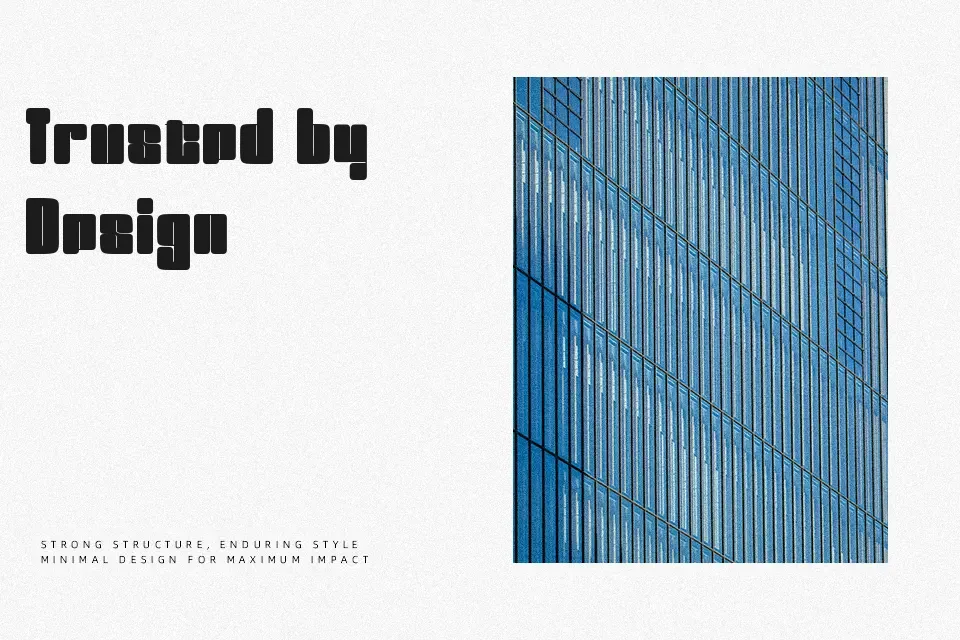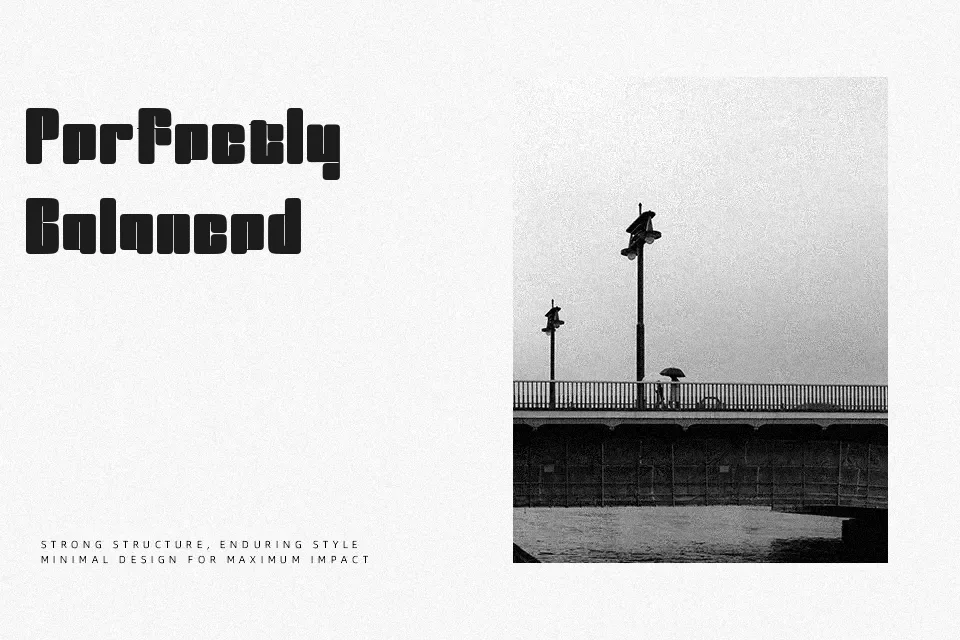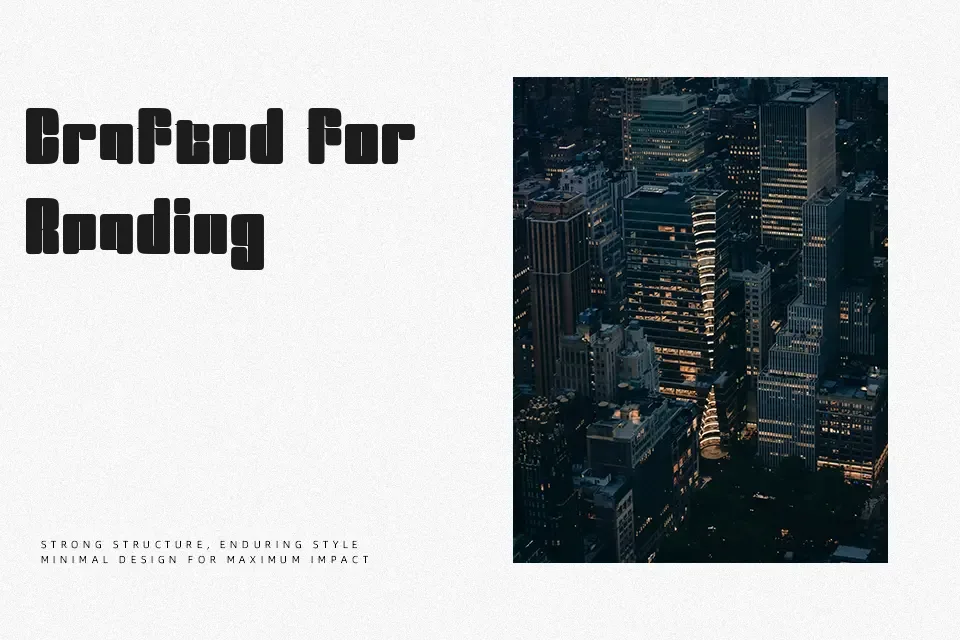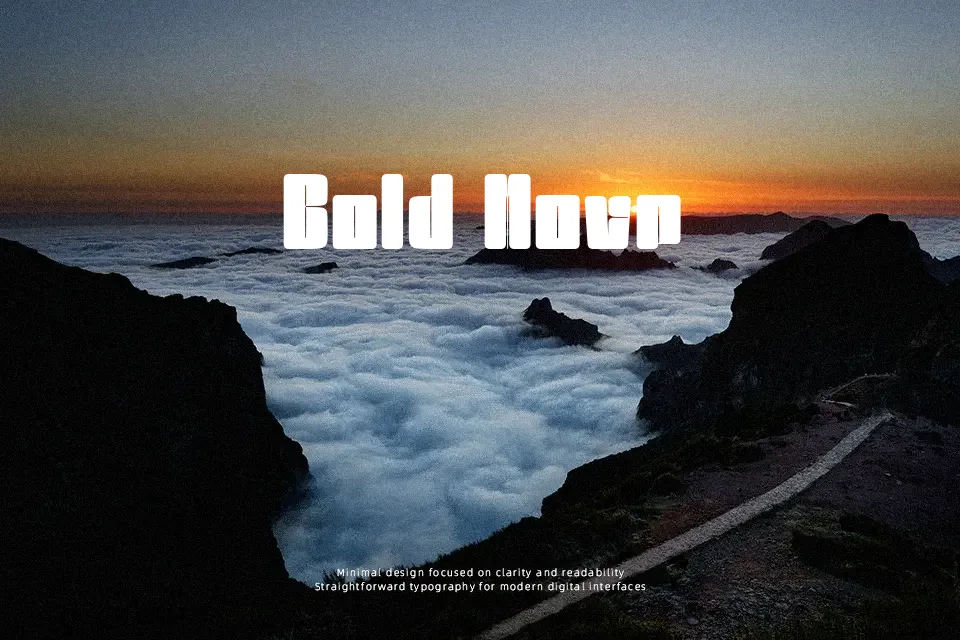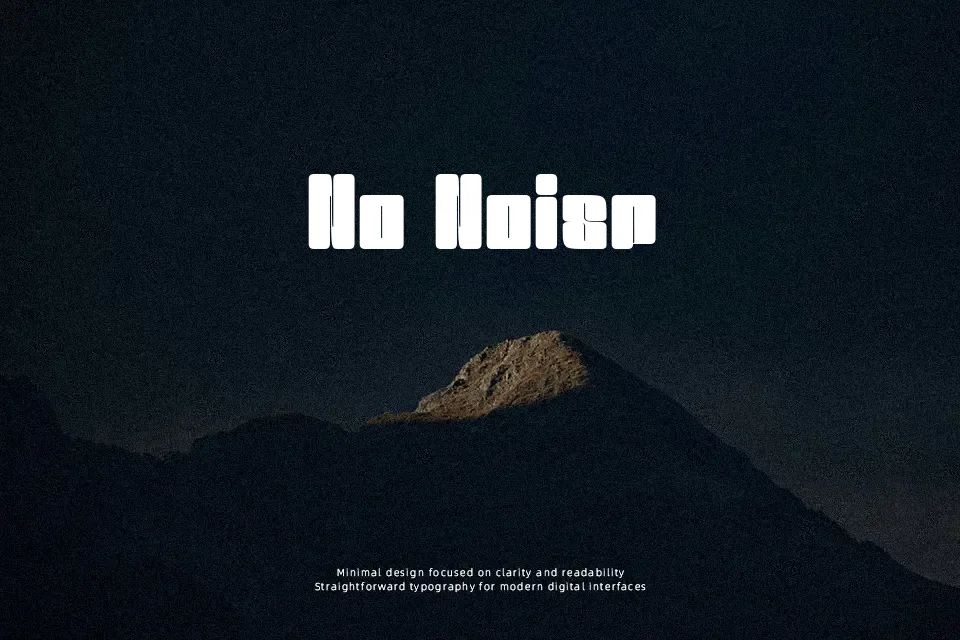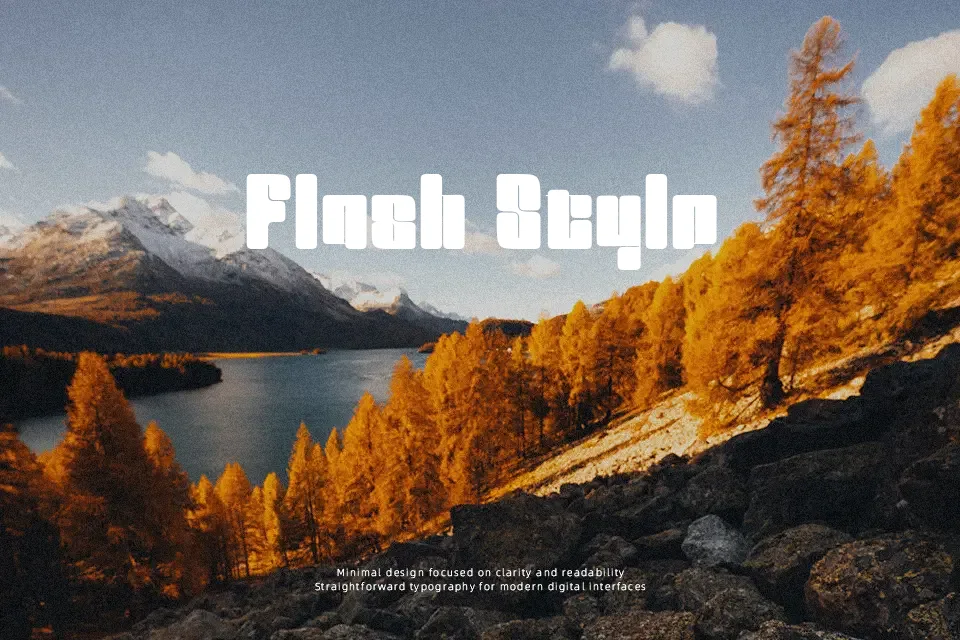
Bezamin Harison Font
Bezamin Harison leans hard into condensed geometry — tall, blocky characters packed with minimal kerning give it an imposing, tightly wound presence on the page. The strokes are consistent and assertive, and the deliberately small counters (“eyes”) inside letters add to its dense, compressed character. This makes it a dependable pick for logotypes, event posters, or streetwear branding where visual weight matters more than refinement. That same density becomes a liability at small sizes or in multi-line body copy — readability drops quickly when characters stack in paragraphs. Use it as a headline workhorse, not a text font. Designers drawn to compressed display faces like Impact or Dharma Gothic will recognize the visual logic here, though Bezamin Harison carries a rougher, more expressive edge.
– Streetwear or apparel brand logos
– Concert or event poster headlines
– Packaging labels requiring strong shelf presence
– Social media title graphics with limited space
– Long-form body text or editorial paragraphs
– Elegant or formal designs such as wedding stationery
– Small-size applications where readability is critical
– Corporate or financial presentations
Perfect for branding, headline, and logo, with a bold and condensed style.